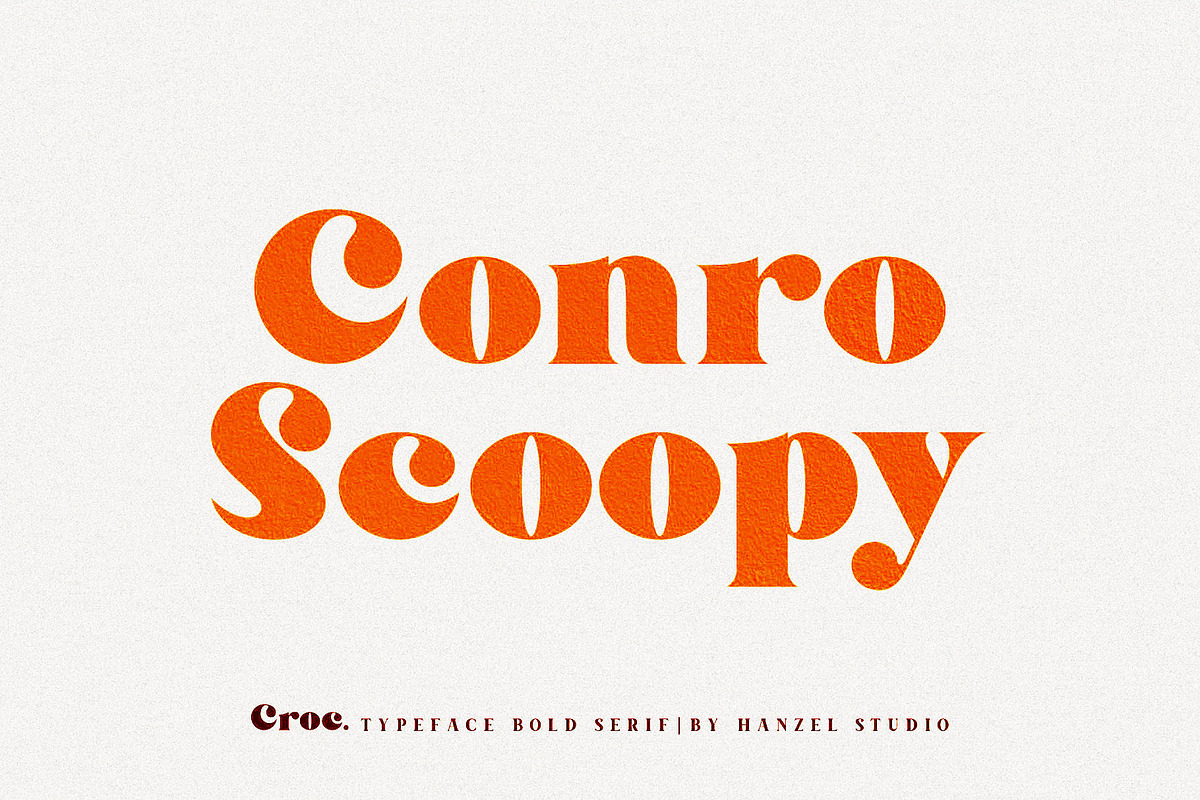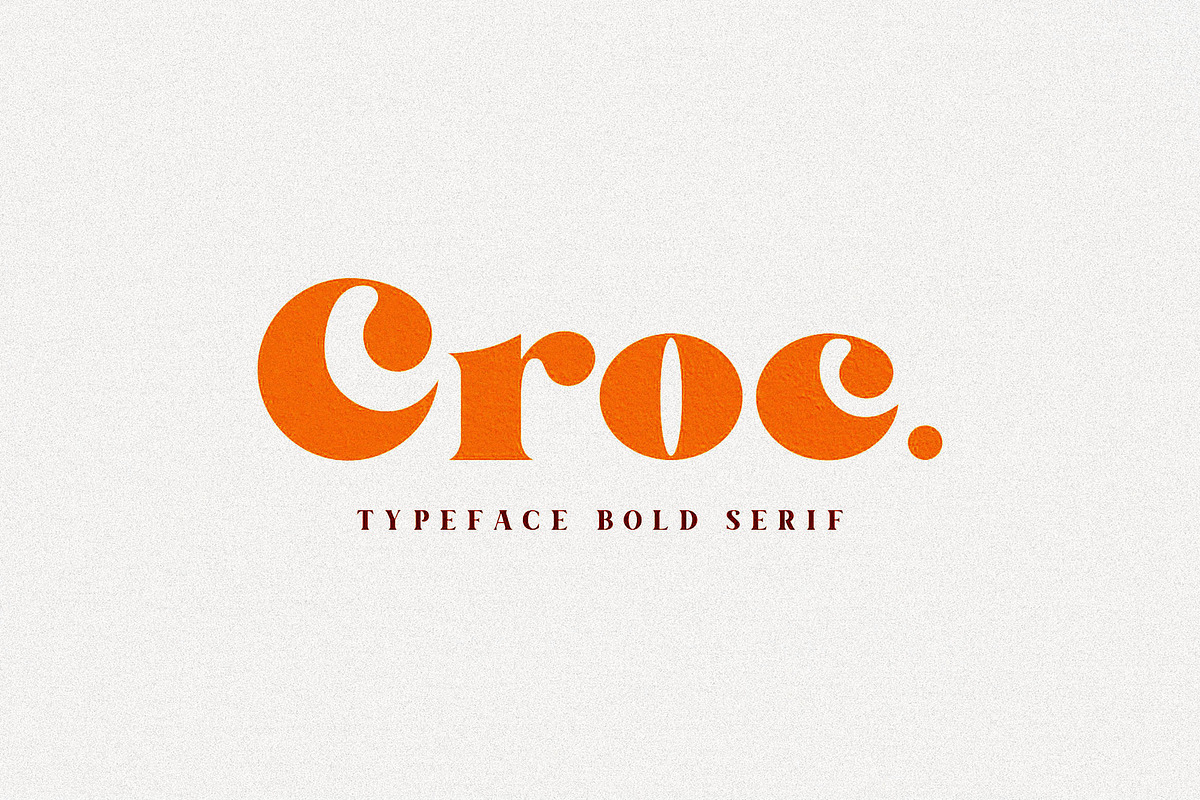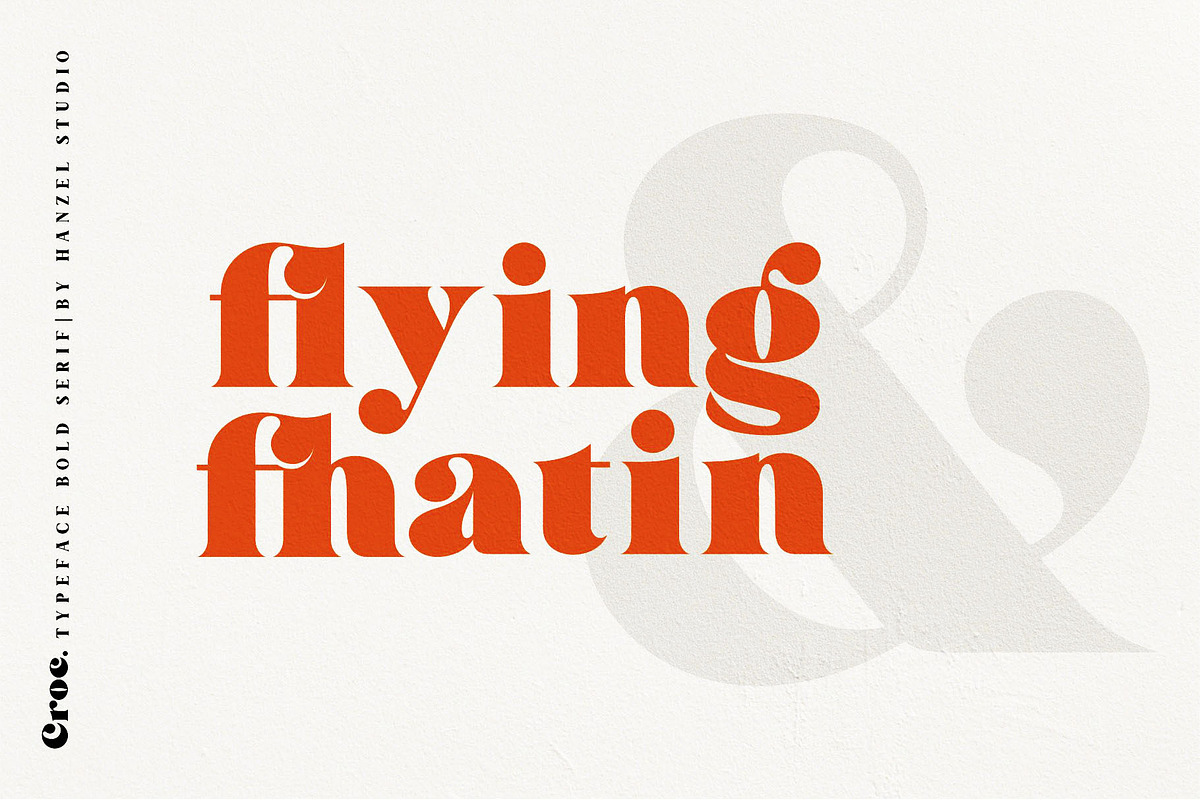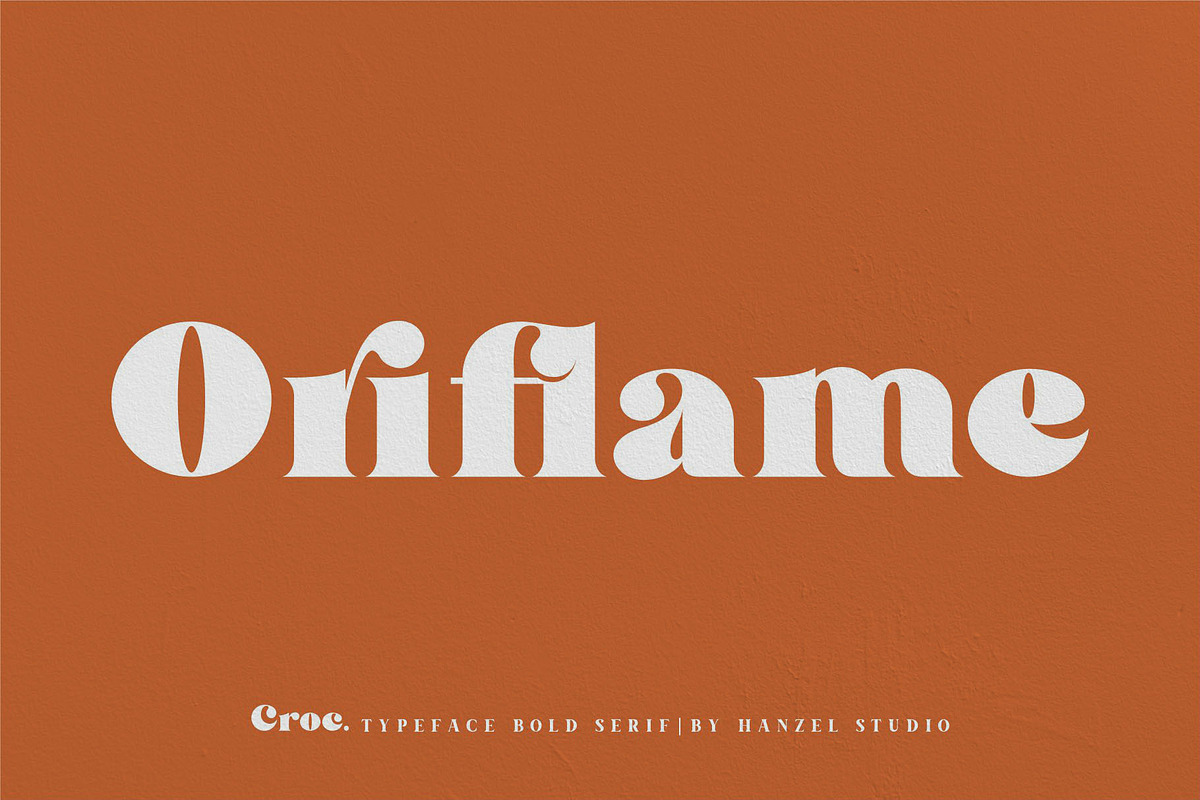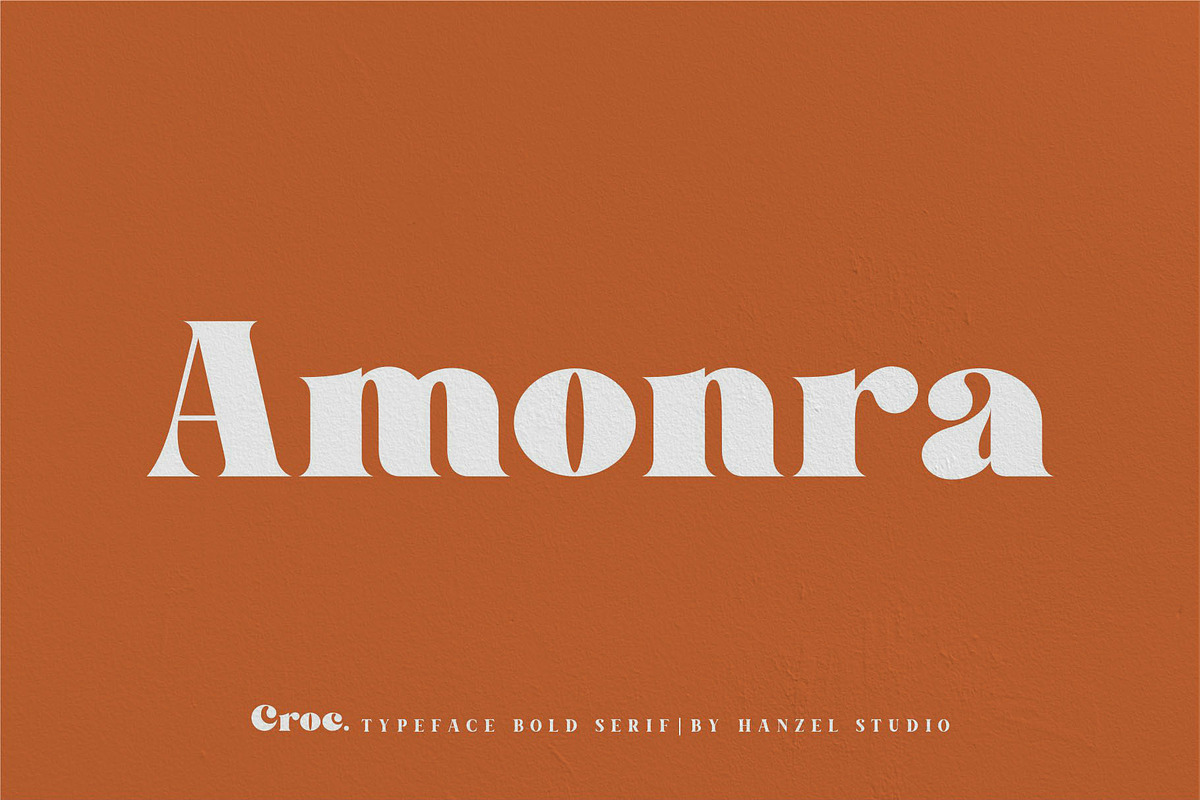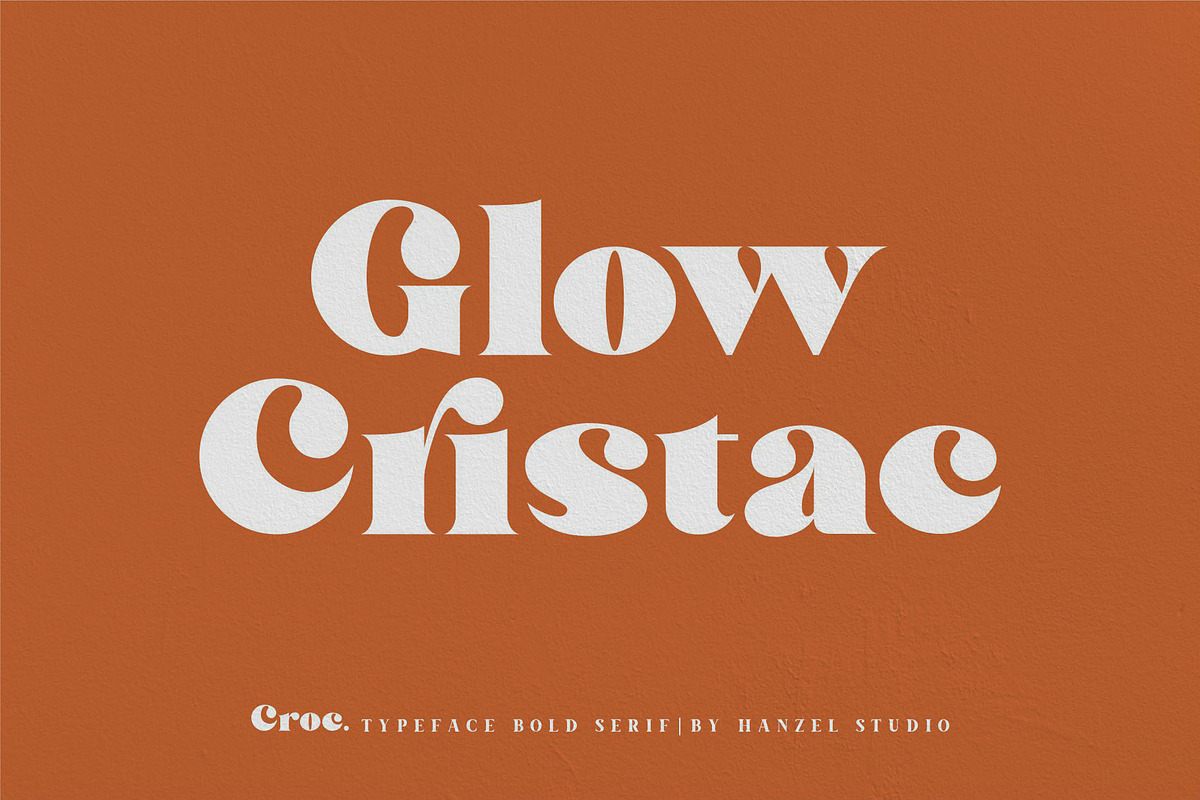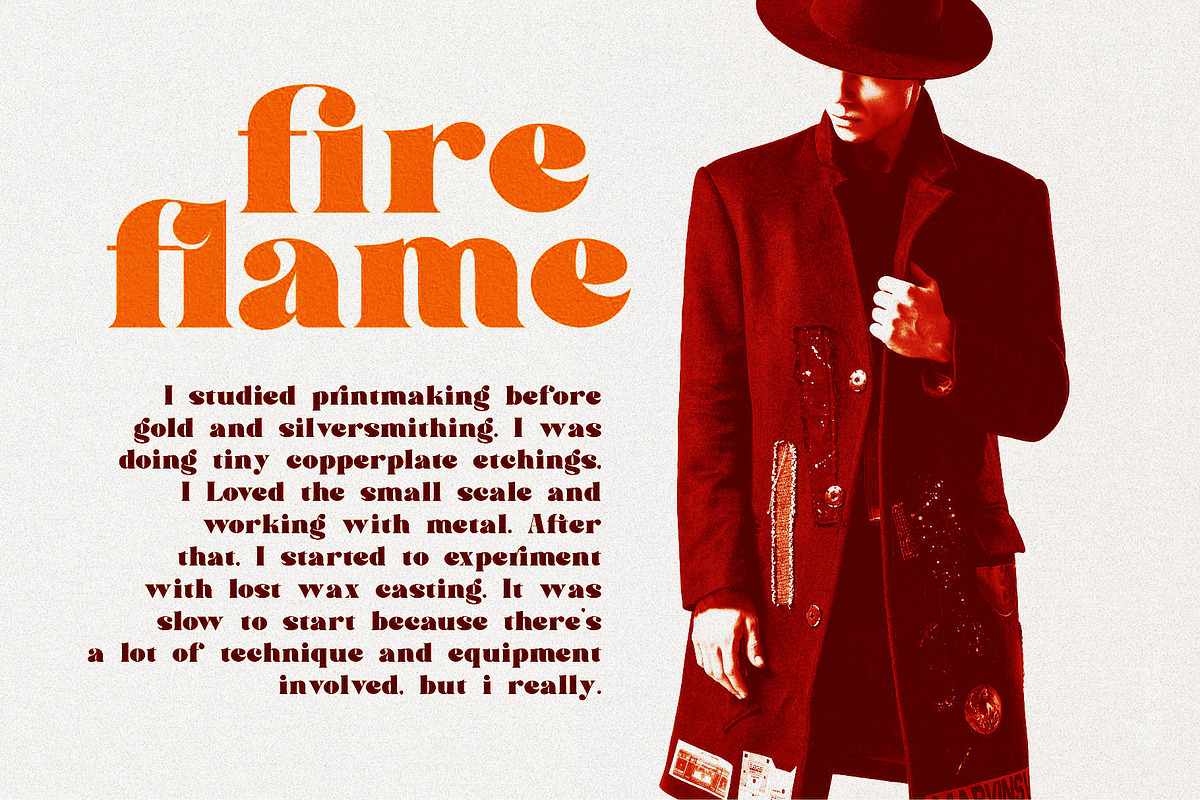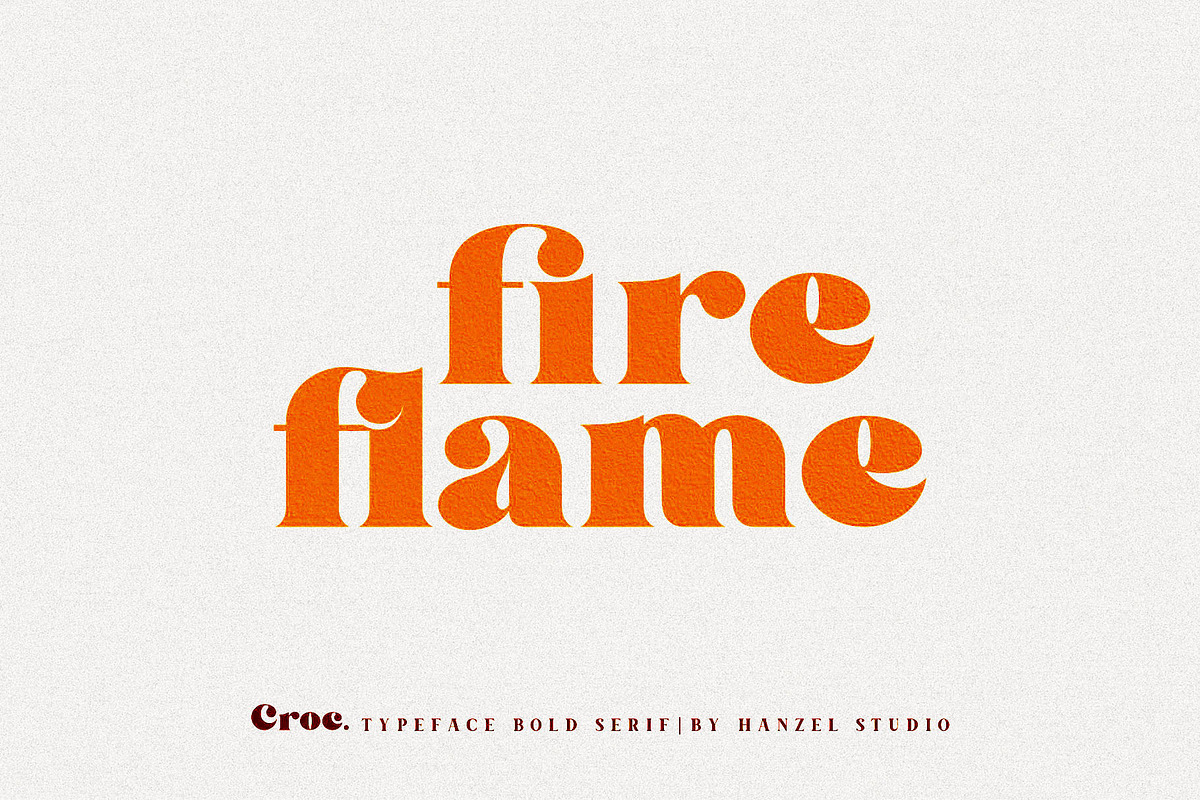
Croc. Typeface Bold Serif
Croc, is a wedge serif font that is sure to stand out! A little bit retro and a bit modern, Croc. is great for logos, editorial or web design. The unique thick serif combined with a rounded touch and a fat look gives an elegant and prominent impression.
This modern serif typeface features serifs. Perfect for gorgeous logos & titles, The Croc will pair beautifully with many fonts and work well with whatever project you're working on.